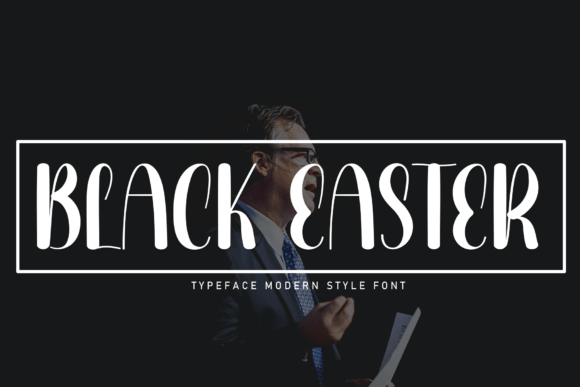
Behold the Black Easter font, a captivating script font that exudes charm and undeniable elegance. This delightful font has been meticulously designed to inspire creativity and bring a touch of whimsy to your design projects. Whether you're a seasoned designer or just starting, Black Easter is the perfect font to add a unique and personal touch to your work.
Crafted with precision and attention to detail, Black Easter features a unique and flowing design that dances across the page, capturing the eye and leaving a lasting impression. This enchanting font is perfect for adding a touch of magic to invitations, cards, logos, posters, and any other design project that calls for a dash of enchantment.
With its playful and charming personality, Black Easter is sure to cast a spell on your audience. Its sweet and friendly style is ideal for creating designs that evoke a sense of joy and wonder. Imagine your wedding invitations adorned with the delicate strokes of Black Easter, creating an atmosphere of love and celebration. Picture your cards and posters infused with a touch of magic, capturing the hearts of all who see them.
Black Easter is more than just a font; it's a gateway to a world of boundless creativity. Its versatility knows no bounds, making it the perfect choice for a wide range of projects. Whether you're designing a website, creating a logo, or crafting social media graphics, Black Easter will elevate your designs and make them stand out from the crowd.
So, embrace the enchanting world of Black Easter and let your creativity soar. This remarkable font is waiting to be your partner in design, helping you create projects that are both visually stunning and deeply engaging. Let the magic of Black Easter transform your designs into unforgettable works of art.